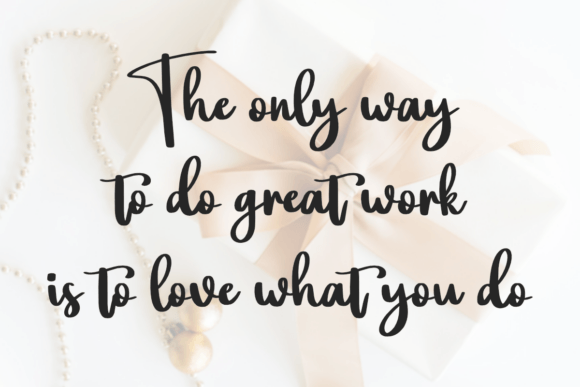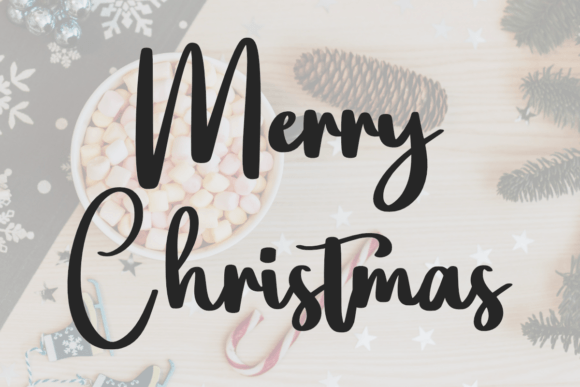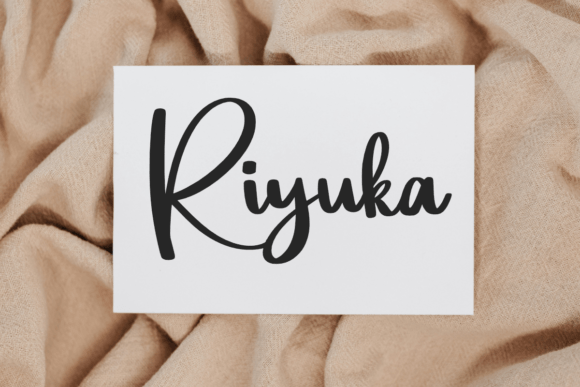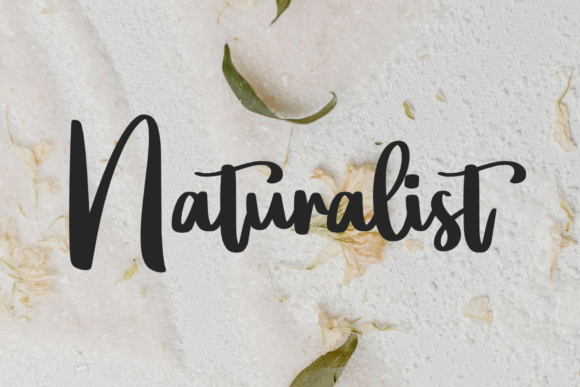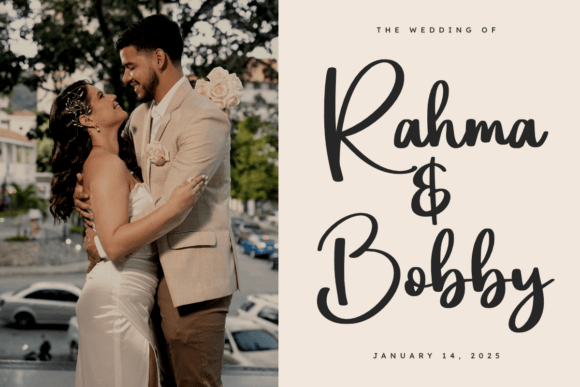
Discover the Magic of Grinch Font
Have you ever found yourself pouring over font collections, searching for the perfect script to add a touch of whimsy to your design project? We’ve all been there – the blank page staring back, waiting for that elusive spark of creativity. For designers, finding the right font can be the difference between a design that falls flat and one that truly shines.
Enter Grinch Font, a charming cursive handwritten font that’s sure to capture your heart. With its gentle, flowing lines and romantic touch, Grinch Font is the perfect addition to any design project. Whether you’re creating a wedding invitation, a branding logo, or a marketing campaign, Grinch Font adds a sense of joy and elegance that’s hard to resist.
As a designer, you know the value of a well-chosen font. It can elevate your design from bland to grand, and make all the difference in conveying your message. With Grinch Font, you’ll have the perfect tool to add a touch of magic to your next project.
Key Features of Grinch Font
- Size: The font comes in 7 different weights, ranging from Light to Black, allowing designers to choose the perfect weight for their project.
- Unique Characteristics: The Grinch Font is known for its distinctive, hand-drawn feel and bold, expressive lines, making it perfect for adding a touch of whimsy to designs.
- Language Support: Grinch Font includes comprehensive language support for Latin-based languages, as well as support for Cyrillic and Greek scripts.
- Kerning and Ligatures: The font includes carefully crafted kerning and ligatures to ensure that text sets smoothly and professionally, even at small font sizes.
Grinch Font Review
Overall, I was intrigued by the Grinch Font, with its unique, bold, and playful vibe. The font is perfect for adding a touch of whimsy to children’s books, advertisements, or social media posts. ✨ It’s a great choice for designers looking to add some humor and personality to their projects.
- Unique and recognizable design, making it perfect for branding and recognition.
- Highly customizable, allowing designers to adjust the font’s weight, spacing, and style to fit their project’s needs.
- Available in a range of weights and styles, making it suitable for various applications, from headings to body text.
- May not be suitable for formal or professional projects due to its playful and humorous nature.
- Can be overwhelming if used excessively, so it’s essential to balance its use with other fonts.
- Not ideal for projects requiring a high level of sophistication or elegance.
Overall, I’d give the Grinch Font 4 out of 5 stars. While it’s an excellent choice for many projects, its limitations should be considered carefully. With some restraint and creativity, however, it can be a fantastic addition to any designer’s toolkit.
Practical Application Guide for Grinch Font
Getting the Most Out of the Grinch Font
The Grinch font is perfect for adding a touch of whimsy and fun to your designs. Here are some tips to get the most out of it:
- Use it sparingly to add emphasis to important text
- Combine it with other playful fonts for a unique look
- Experiment with different font sizes and colors to create visual interest
The Grinch font is ideal for:
- Children’s party invitations
- Holiday-themed designs
- Whimsical greeting cards